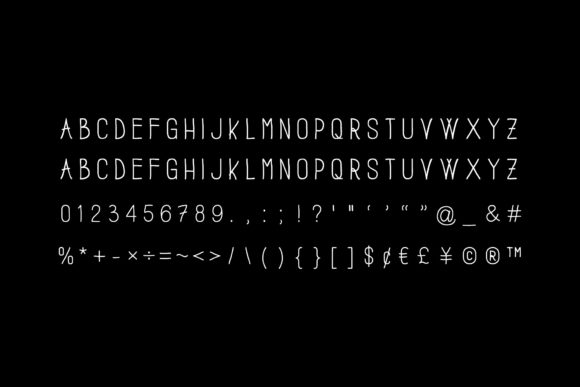
Farmhouse Font
db-ku.com - Script & Handwritten -- Farmhouse is a simple and clean handwritten font. Its natural and unique style makes the font suitable for your farmhouse signs, decor, cards and much more.